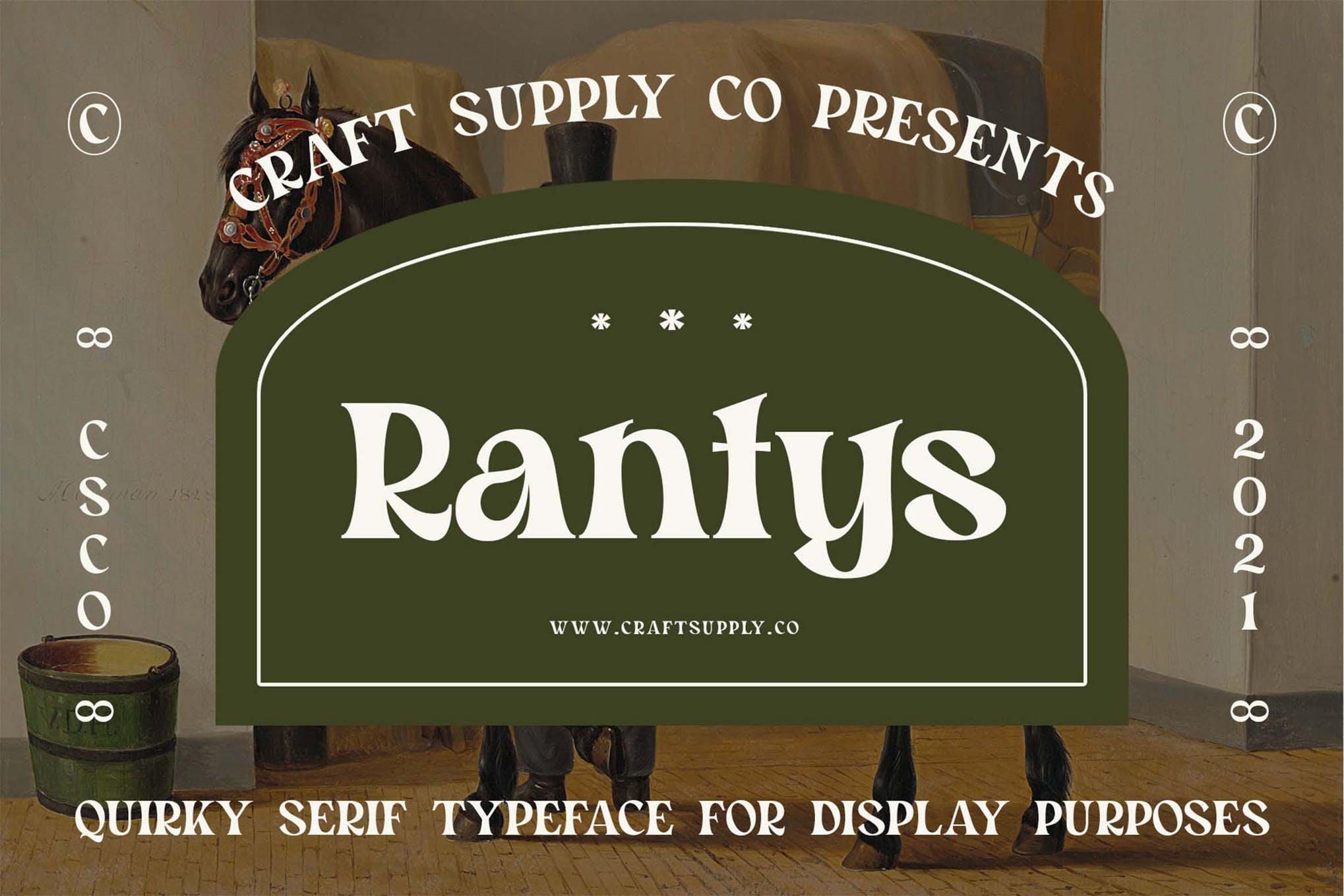
Rantys - Quirky Serif Typeface
Rantys - Quirky Serif Typeface is a quirky display font combines thick and thin strokes, oldskool serif, and weird tweak. It can be used to create almost all types of design projects like print materials. Just use your imagination and your project will become more alive and look great than ever with this typeface.